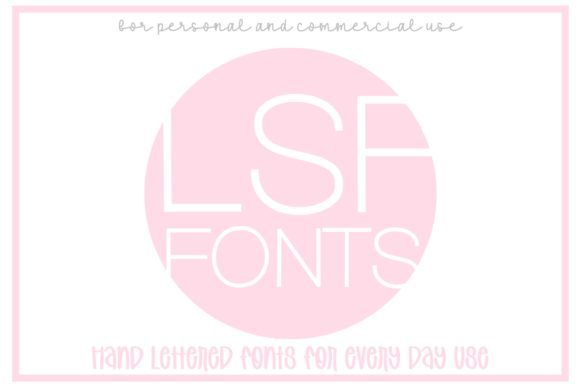
Introduction to LSF Volume 4 Font
LSF Volume 4 is an incredibly versatile and neat collection of 5 font styles.
It is suitable for creating any branding, product packaging, invitation, quote, t-shirt, label, poster, logo that you wish to develop .
LSF Volume 4 Font offers exceptional quality and versatility, making it a valuable addition to your design toolkit. Whether you’re creating for personal projects or commercial use, LSF Volume 4 Font delivers professional results.